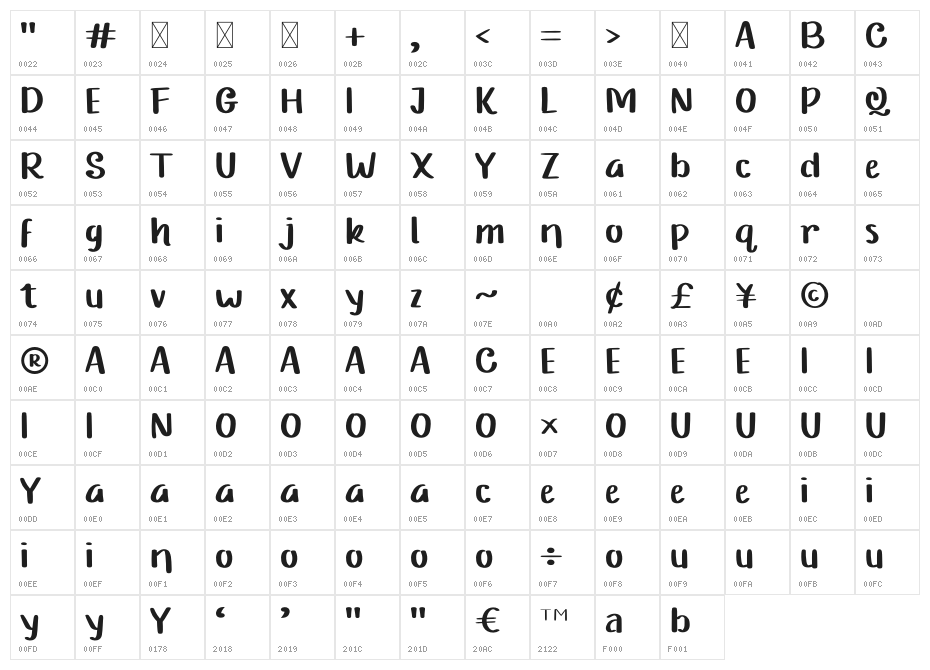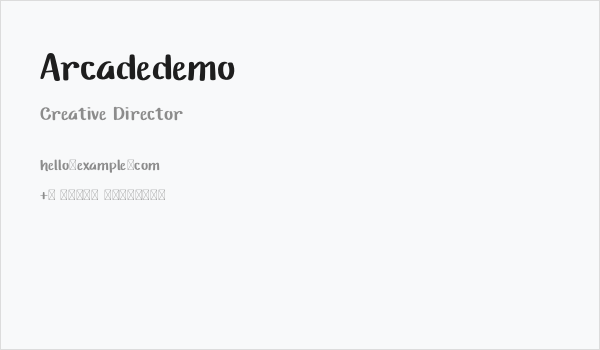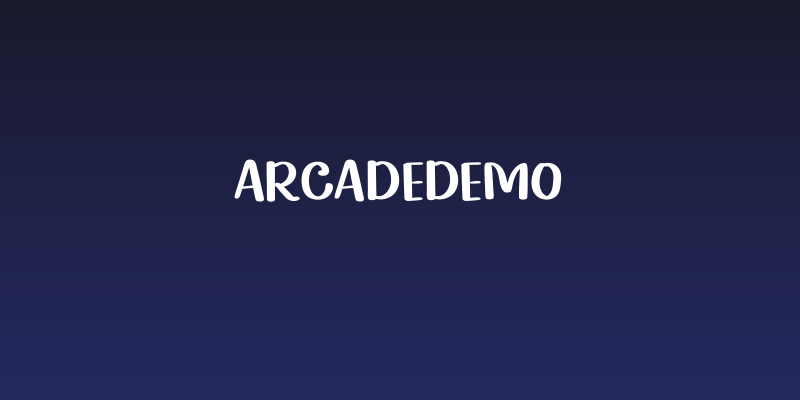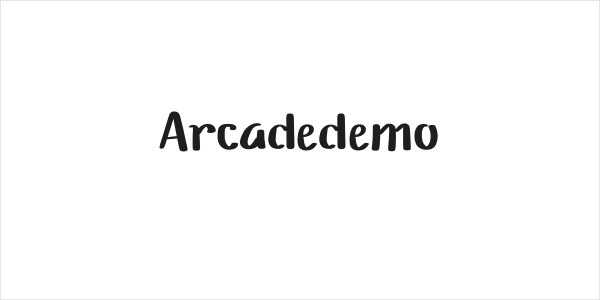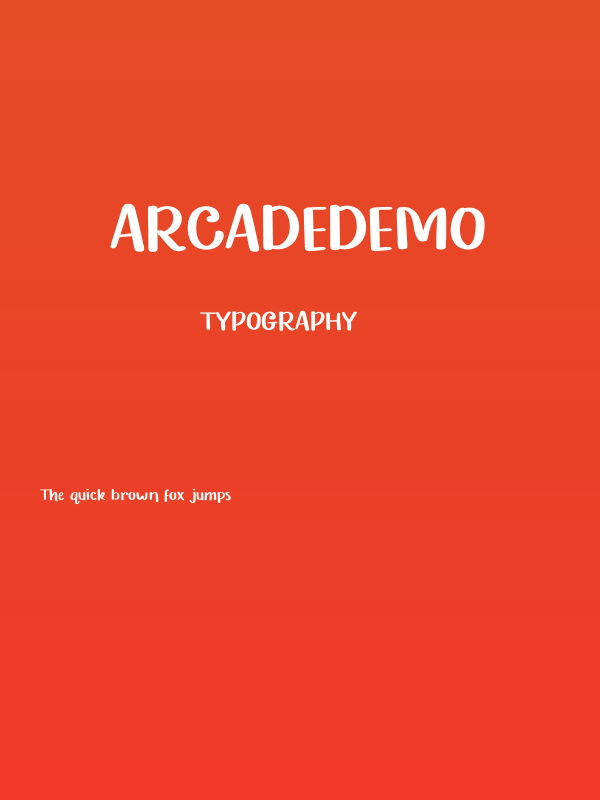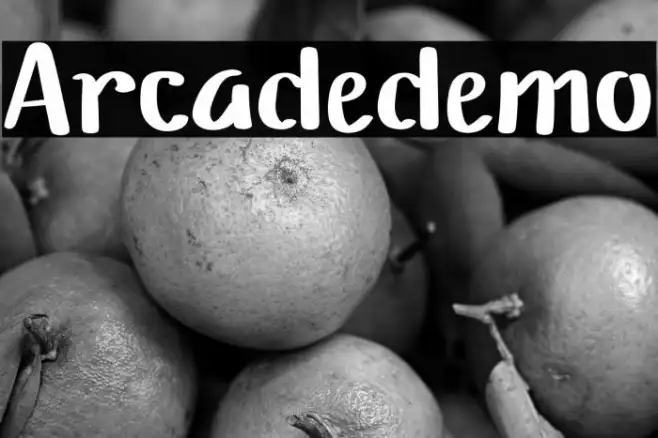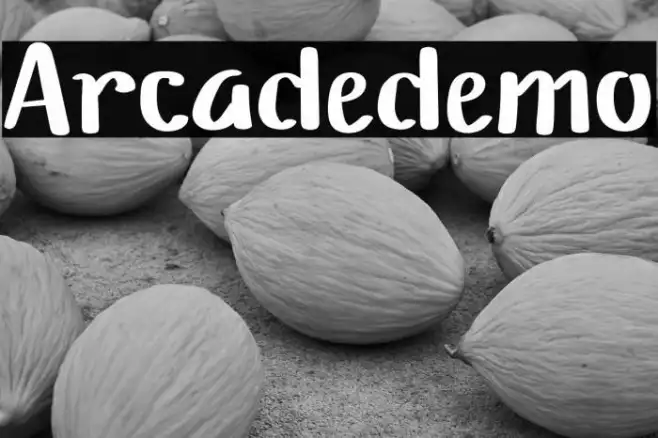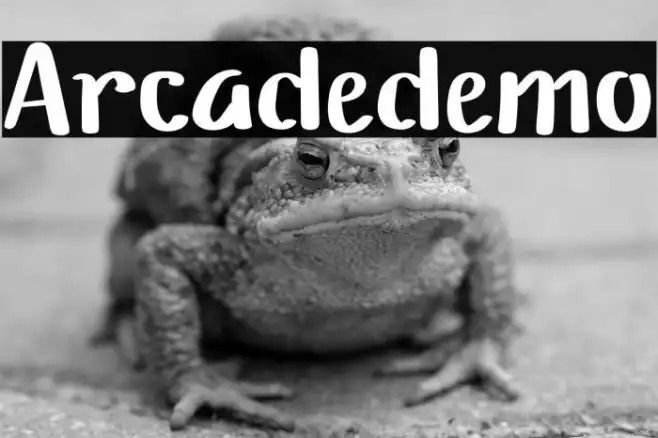
Arcadedemo Font
Arcadedemo Description
This playful and bold font features rounded, thick strokes that give it a friendly and approachable appearance. The uppercase letters are slightly wider, with a consistent stroke width that adds to its boldness. The lowercase letters maintain the same playful style, with some characters having unique, whimsical touches, such as the looped 'g' and the curved 'y'. The font's overall design is casual and informal, making it suitable for projects that require a fun and lively aesthetic. Its readability is enhanced by the clear distinction between each character, despite the boldness of the strokes.
| Proposed Projects | Ideal for children's books, playful branding, posters, and social media graphics. |